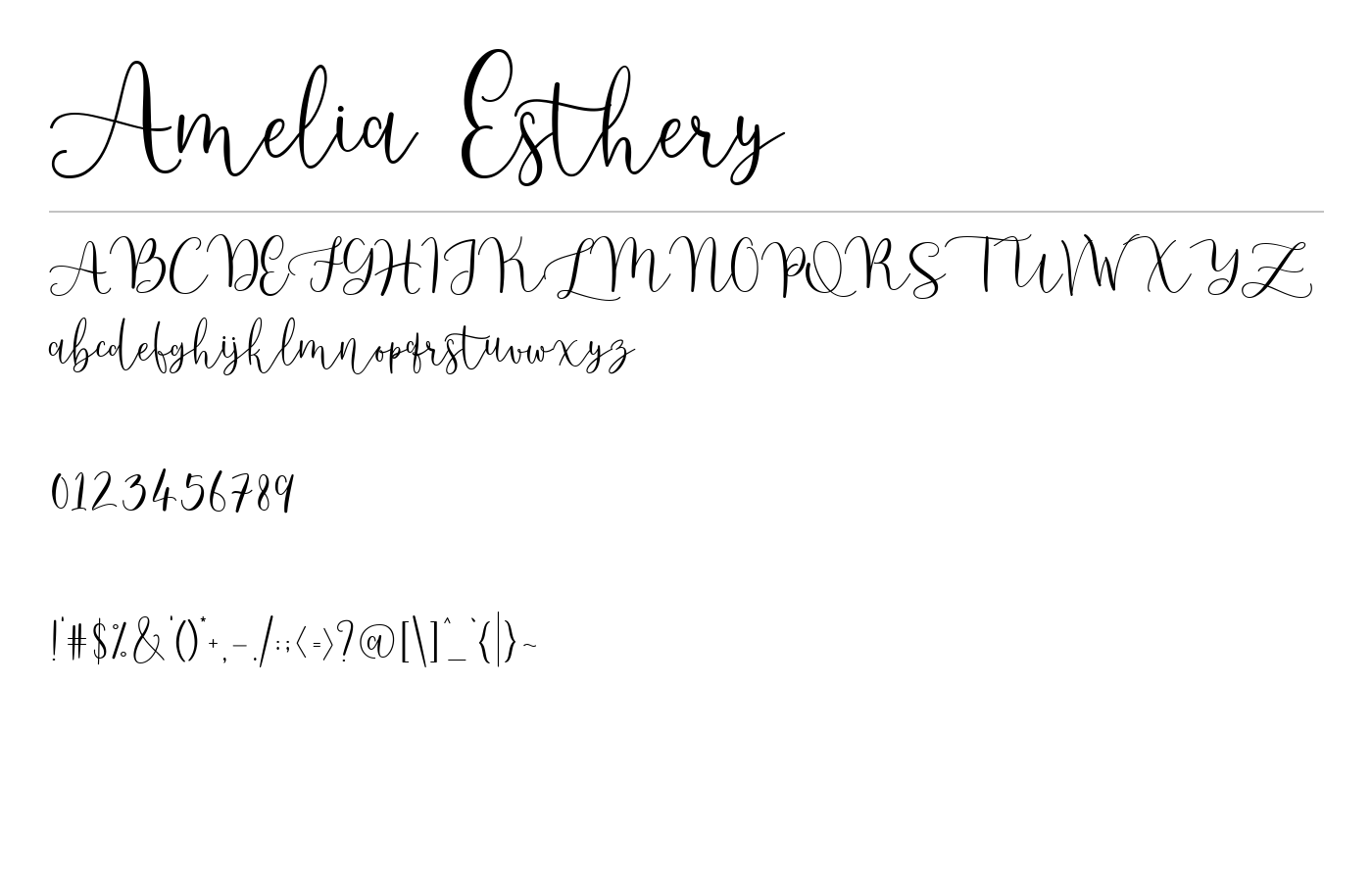
Amelia Esthery is a delicate and elegant script font characterized by its thin, flowing strokes and graceful, handwritten style. Its fine lines and playful curves create a light, airy feel, making it perfect for invitations, branding, and any design seeking a touch of sophistication and charm. This font works beautifully for weddings, fashion, and luxury projects where a personal and stylish impression is desired.
Amelia Esthery Font
About Amelia Esthery Font
| Font family | Amelia Esthery Font |
| Designer | Faisal Tanjung |